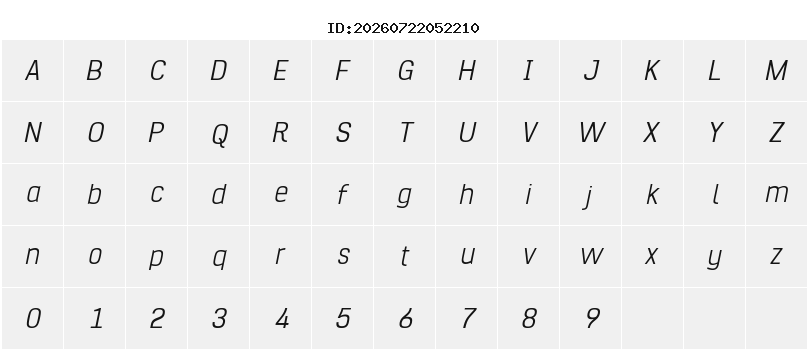
• Font Name: Hurufo & Numero Thin Italic
• Designer: Situjuh Nazara
About Hurufo & Numero Thin Italic.ttf
Hurufo & Numero Thin Italic.ttf is a modern, elegant sans-serif font designed for ultimate readability and visual harmony. Perfect for branding, headlines, web design, and print materials.